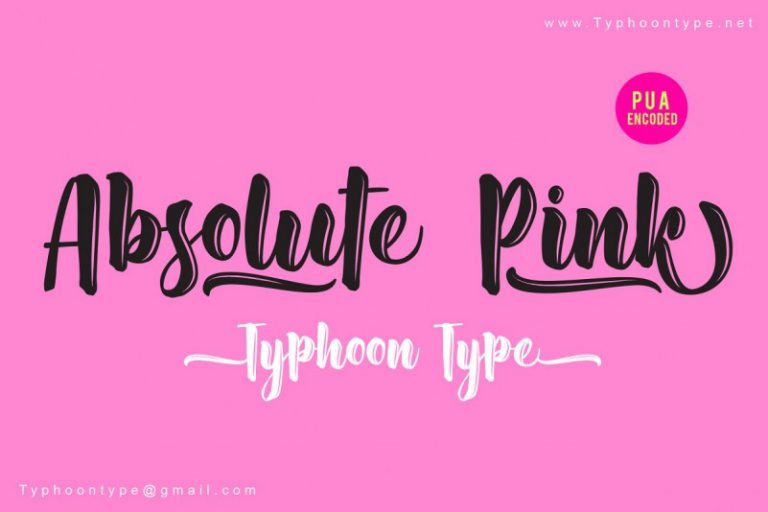
Absolute Pink Script Font
Hello! Introducing Absolute Pink Font! Absolute Pink Script Font is Vintage Script Brush Font with Handlettering Brush Style, so much opentype feature include of the font. Suitable for design, element design, wedding, event, t-shirt, logo, badges, sticker, and awesome work, etc…